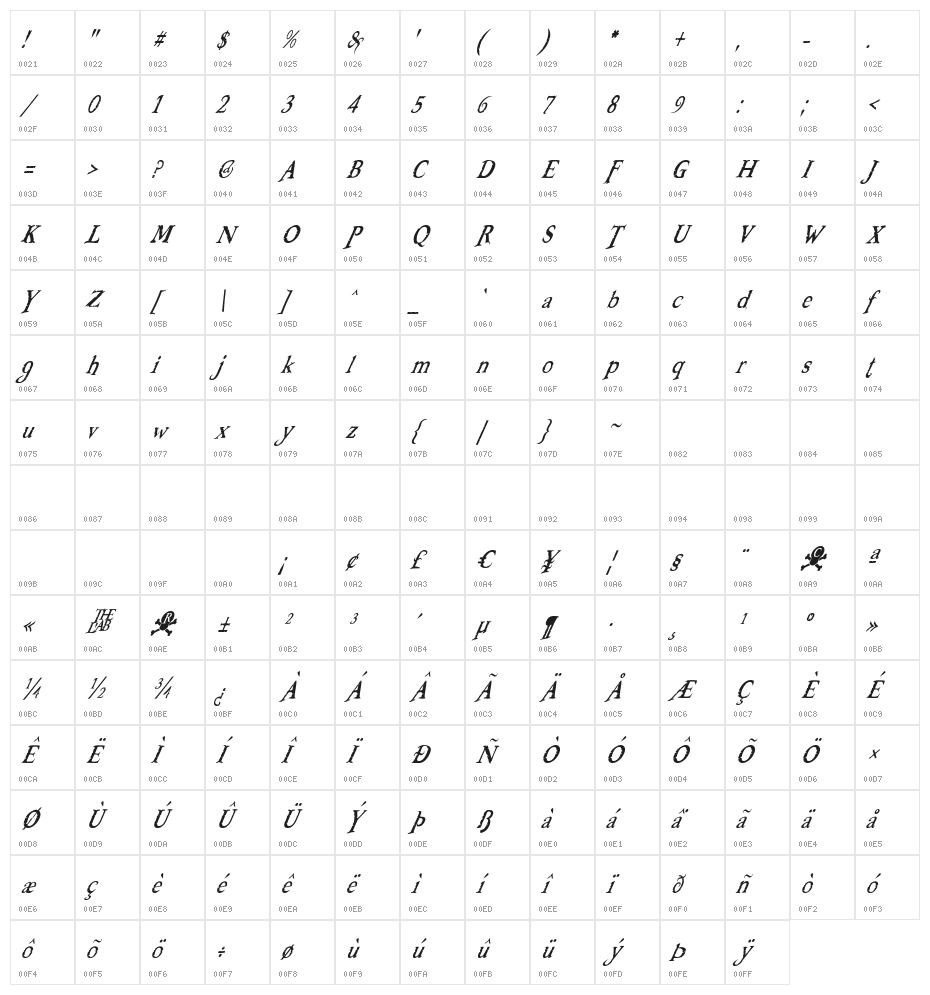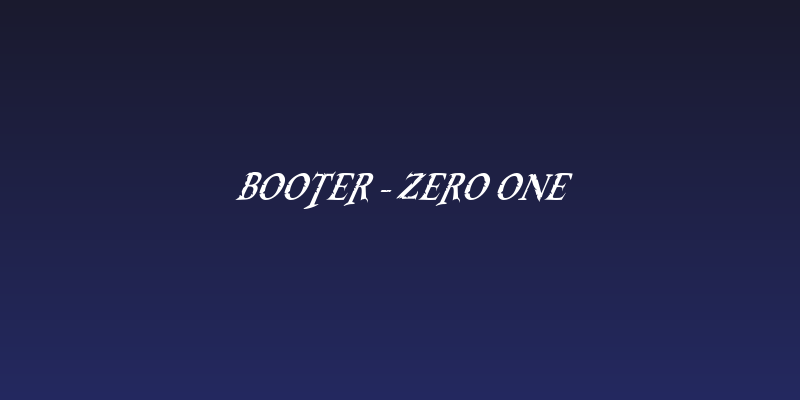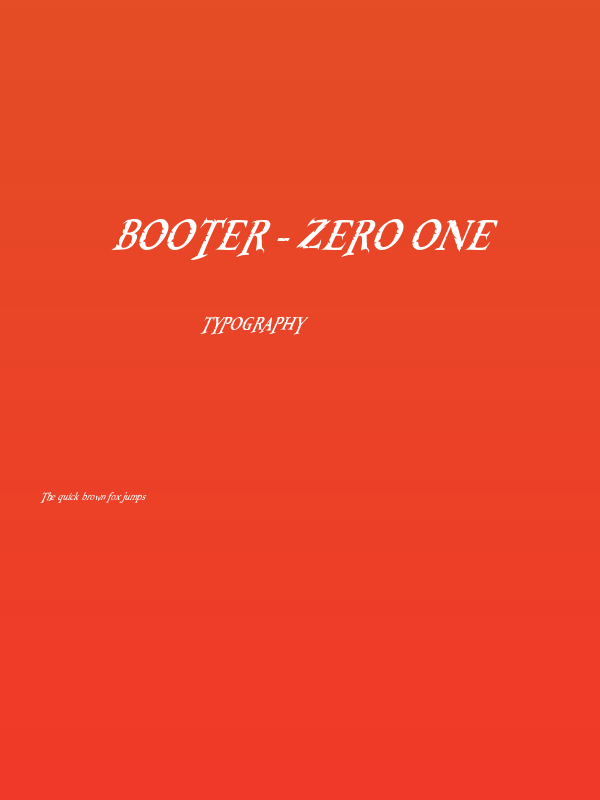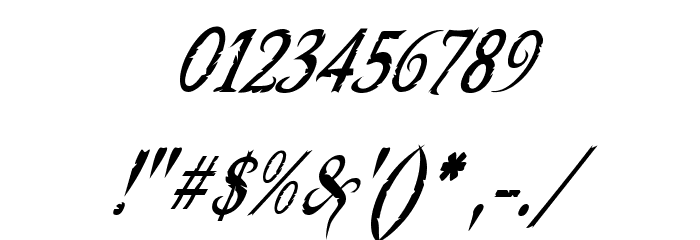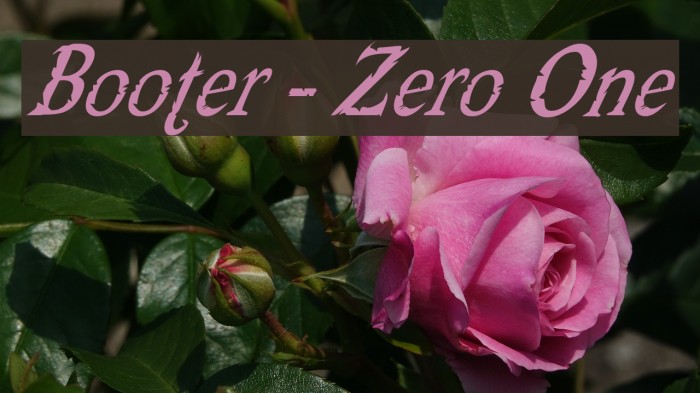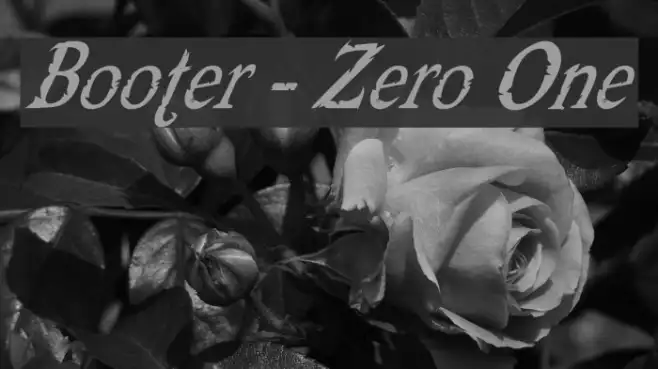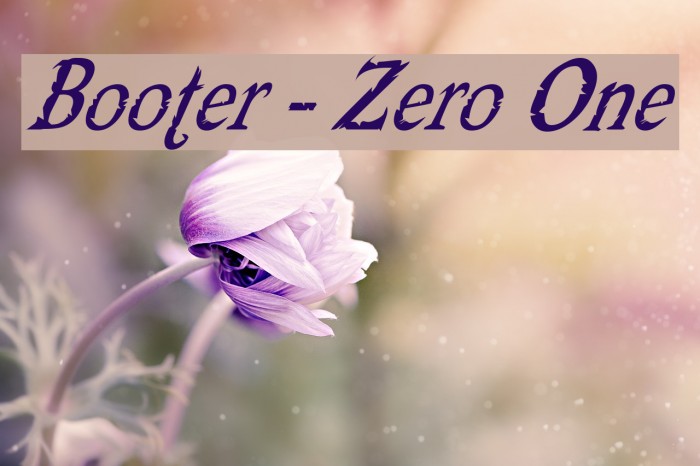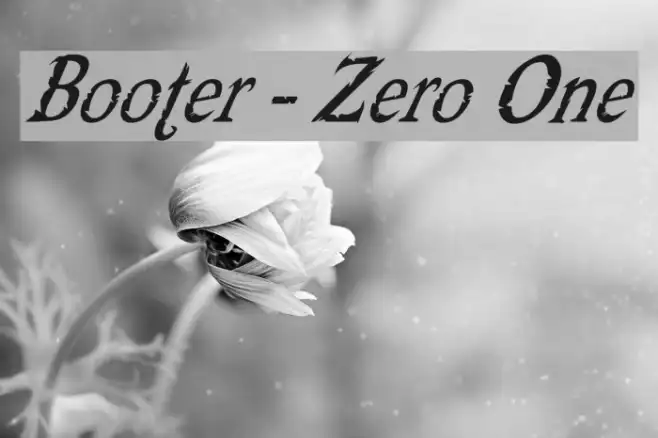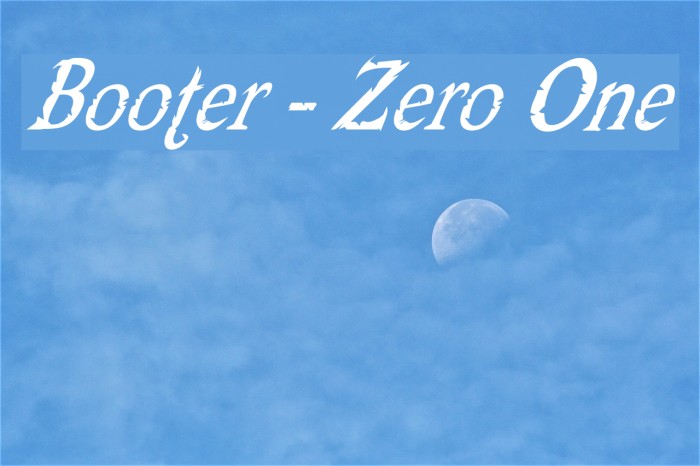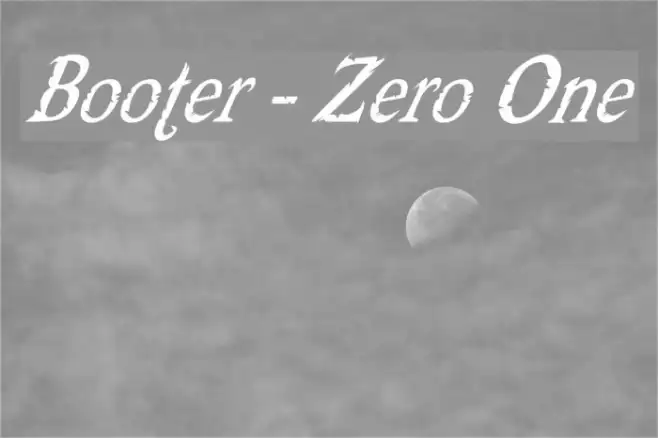
Booter - Zero One Font
Booter - Zero One Description
This font exhibits a bold and dynamic style with sharp, angular serifs and a distinct slant, giving it a sense of motion and energy. The uppercase letters are particularly striking, with exaggerated strokes that create a dramatic effect. The lowercase letters maintain the same angularity and slant, ensuring consistency across the typeface. Numbers and special characters are designed with the same boldness, making them stand out. The overall appearance is both aggressive and stylish, suitable for making a strong visual impact.
| Proposed Projects | Ideal for projects requiring a strong visual impact, such as posters, logos, and branding materials. |